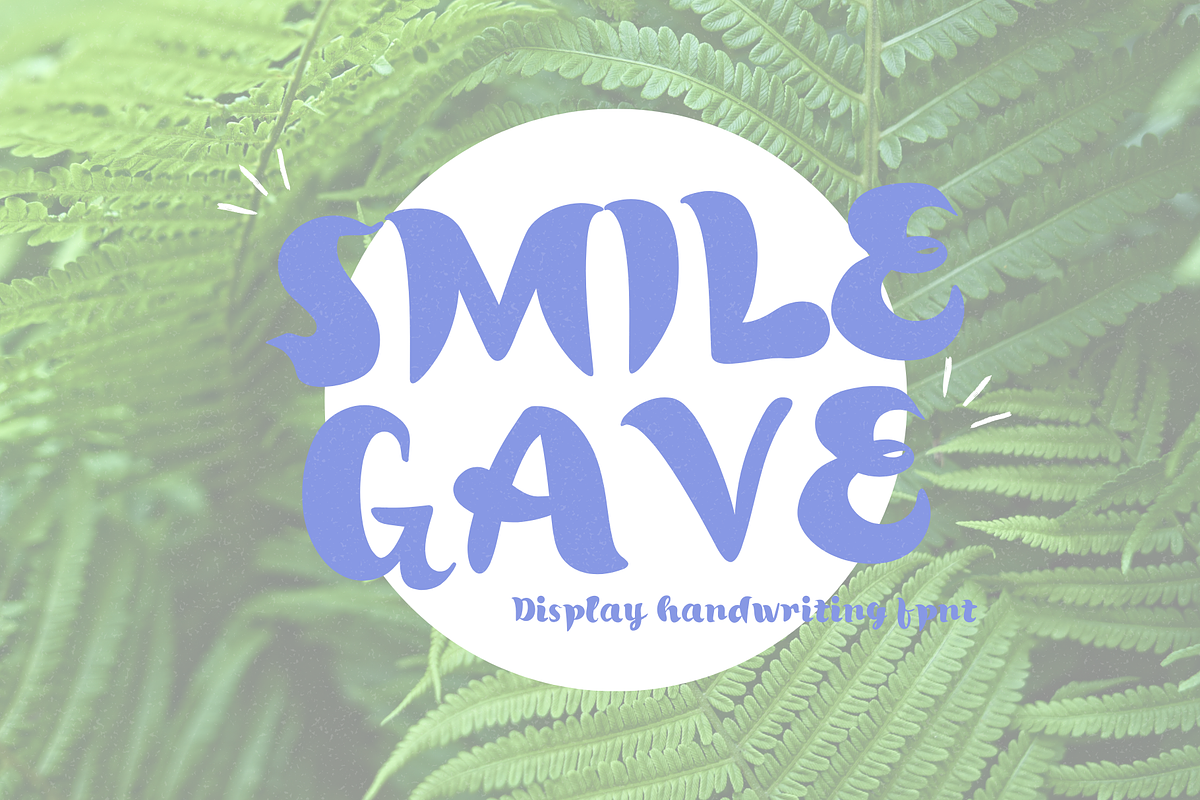
Smile Gave font Free Download
Smile Gave Font Free Download
The Smile Gave Font Free Download is a cheerful and playful typeface that adds a touch of warmth and fun to any design. With its rounded edges and friendly letterforms, this font is perfect for projects that require a lighthearted and approachable feel. Whether you’re designing logos, posters, children's books, or social media content, Smile Gave Font will bring a joyful and welcoming energy to your work.
The Smile Gave Font Free Download brings a delightful, hand-crafted quality to your designs. Its rounded, bold letterforms give it an easy-to-read and fun look, making it ideal for projects aimed at a younger audience, educational content, or any design requiring a light and friendly vibe.
Whether you're creating playful branding, catchy headlines, or engaging social media posts, Smile Gave Font provides a friendly and inviting style. Its simple yet distinctive design ensures that it will stand out in any project, helping your content connect with your audience on a personal level.